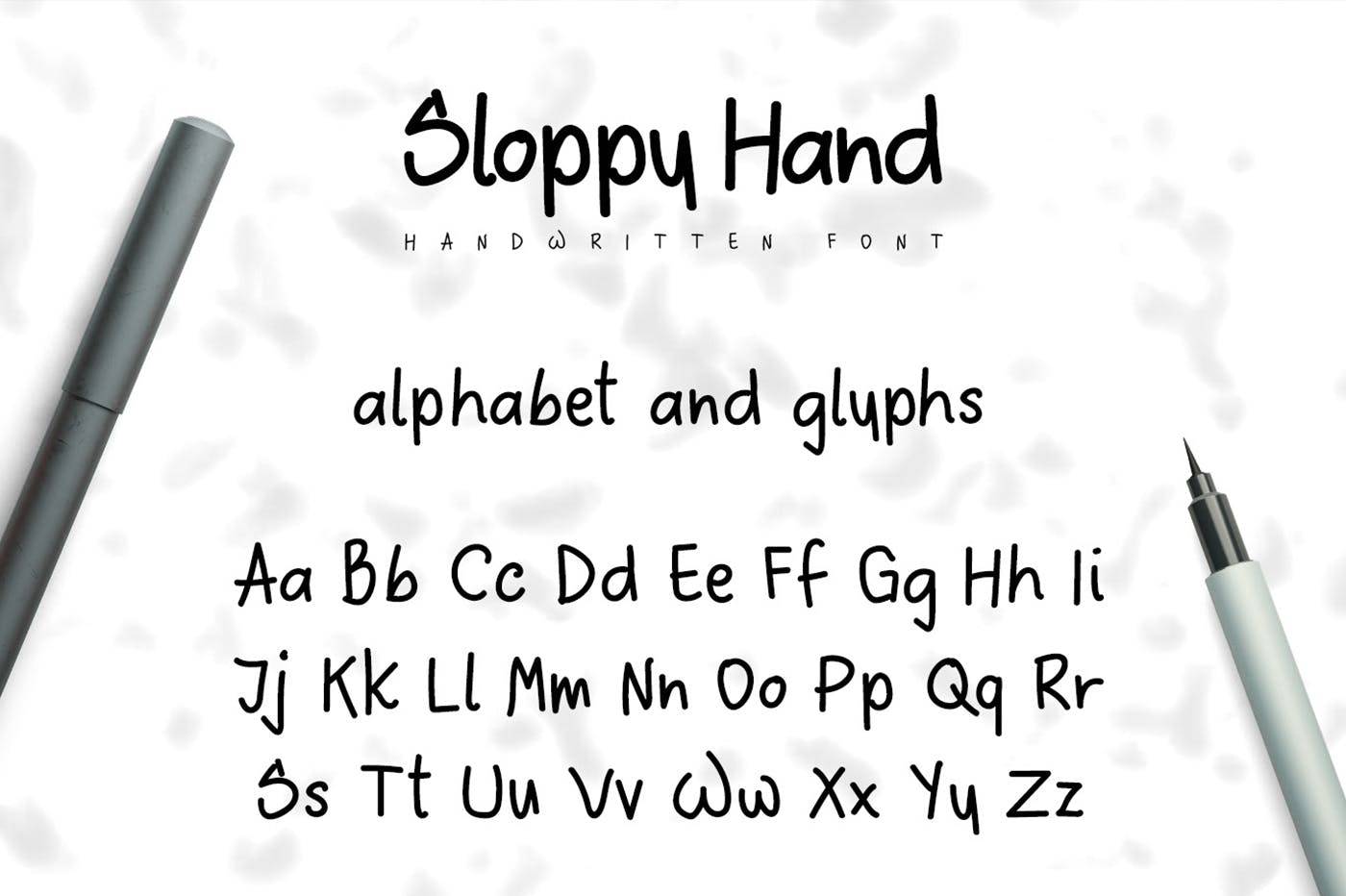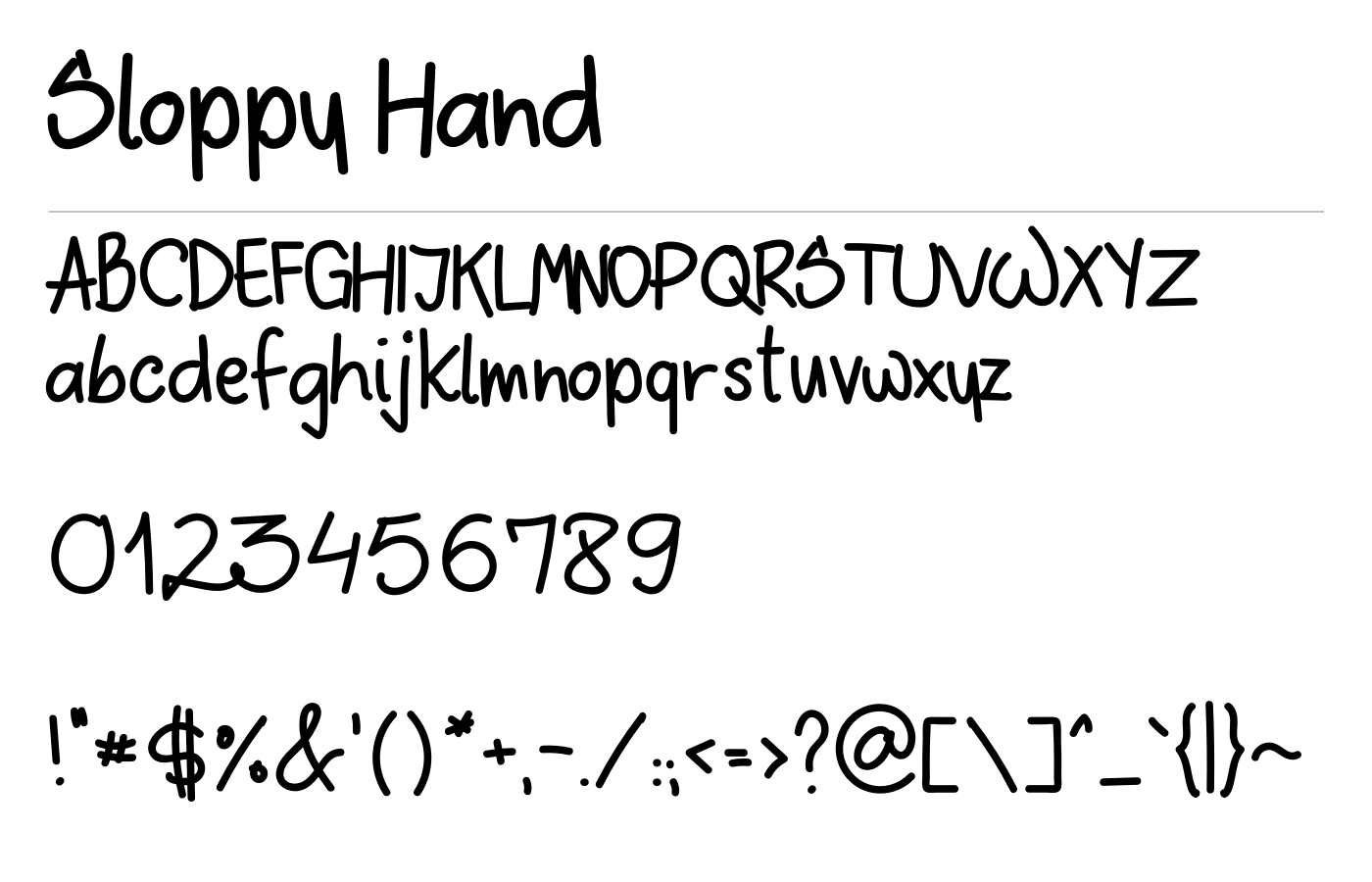
Sloppy Hand is a playful, casual handwritten font with a friendly and informal feel. Its irregular, slightly quirky letterforms and medium stroke weight give it a lively, approachable personality, making it ideal for creative projects, children’s materials, or any design seeking a personal, relaxed touch. This font works best in headlines, invitations, and packaging where a warm, human vibe is desired.
Sloppy Hand Typeface
About Sloppy Hand Typeface
| Designer | Casota Bogdan |